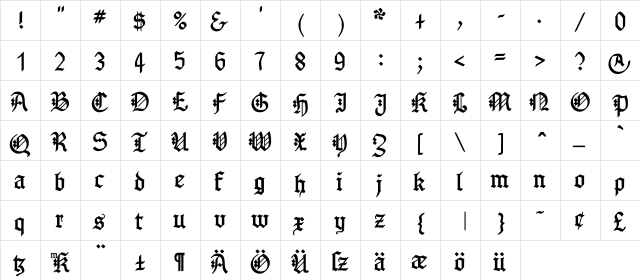
GotenborgFraktur Regular
Design Context for GotenborgFraktur Typeface
GotenborgFraktur channels the dramatic heritage of Fraktur and Gothic scripts, bringing a sense of historical gravitas to any design.
A natural fit for music packaging, gothic editorial design, and any project that needs historical weight.
Font Pairing: Pair with a clean neutral sans-serif for body copy to let GotenborgFraktur's character lead without overwhelming the composition.
Pro Tip: Reserve GotenborgFraktur for display and logo use — pair it with a clean sans-serif for body copy to prevent the composition from feeling oppressive.